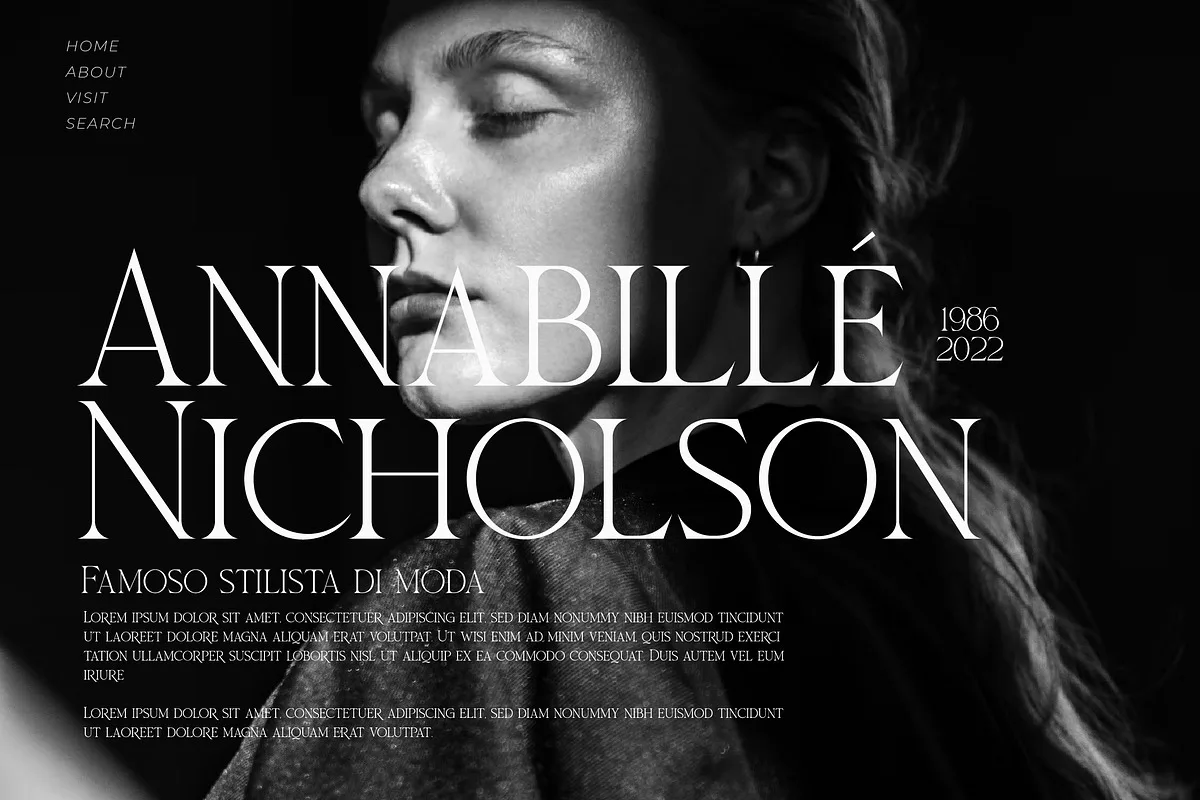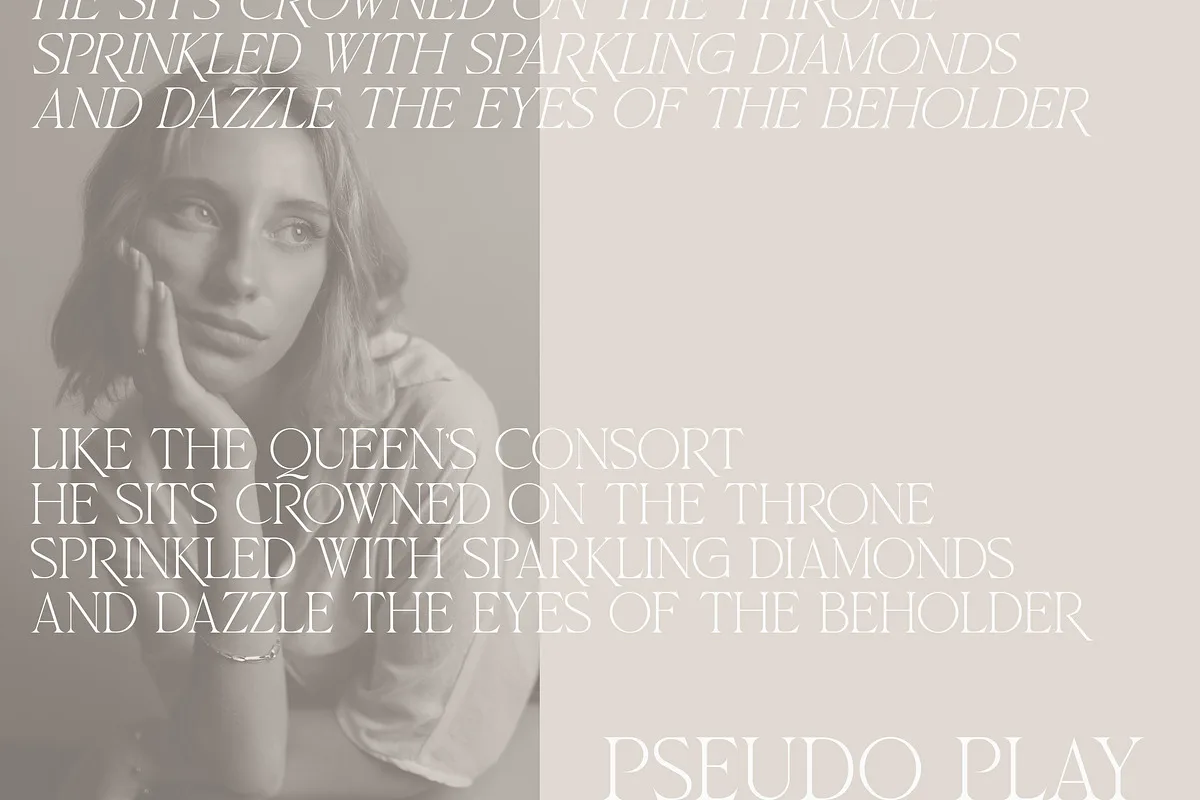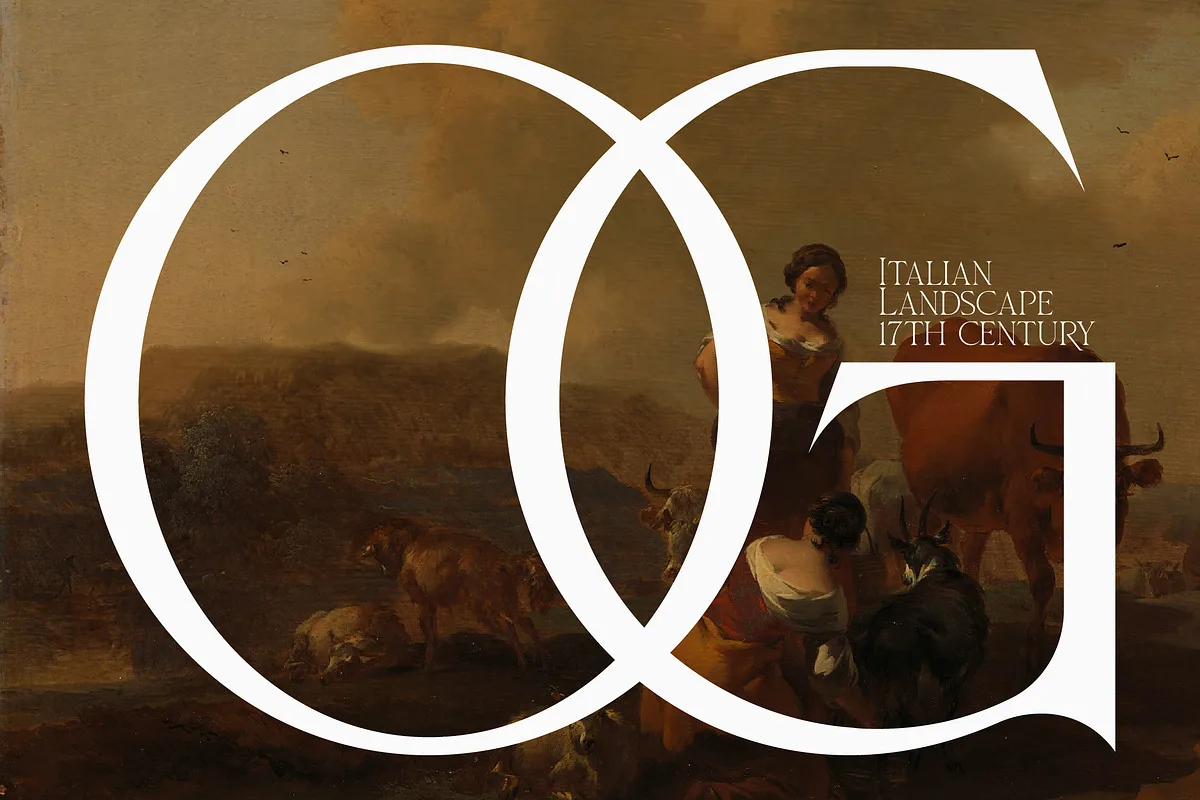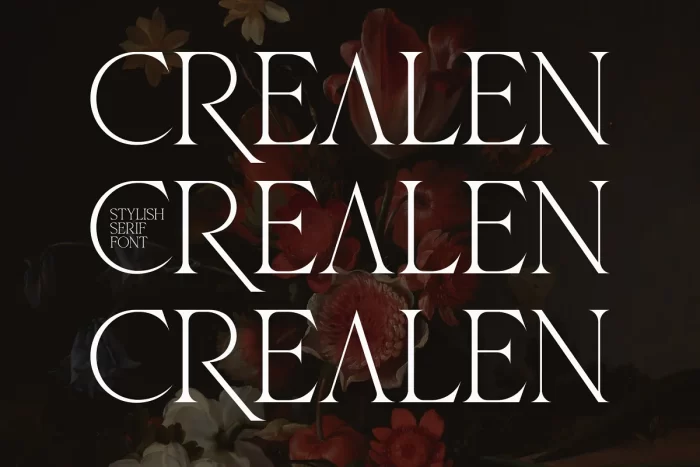
Crealen is a serif modern and classic typeface that has its own unique style & modern look. This typeface is perfect for an elegant & luxury logo, book or movie title design, fashion brand, magazine, clothes, lettering, quotes, and so much more.
- Uppercase and Lowercase
- Numerals
- Punctuations (OpenType Standard)
- Accents (Multilingual Characters)
- Ligatures and Alternative Style Stylistic Set